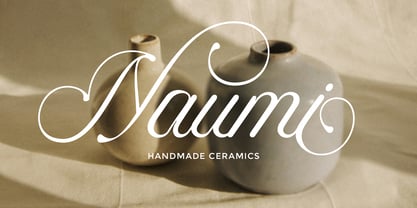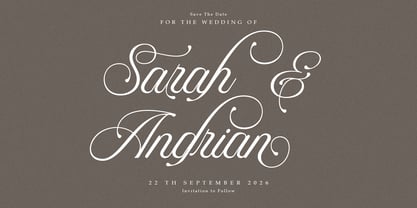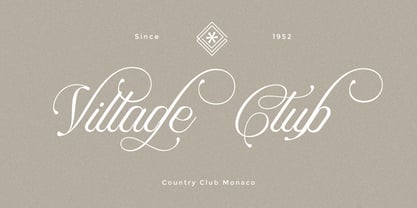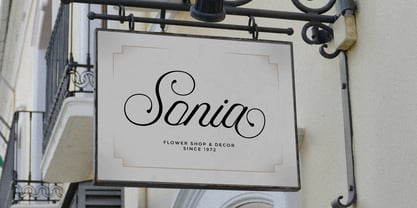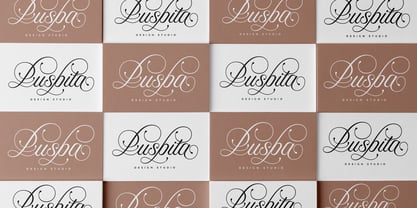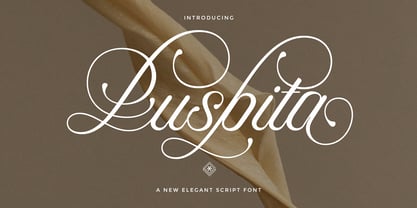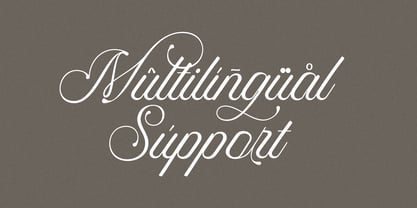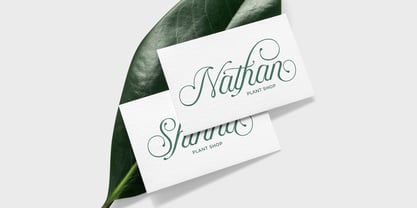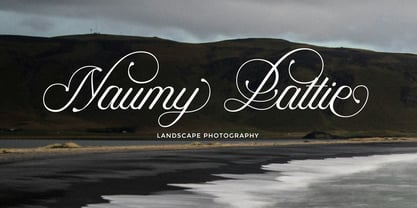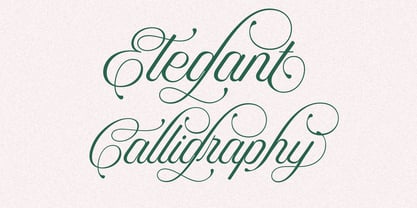
Puspita Script
by Letterfreshstudio
The Puspita Script Font Family was designed by Rizki Andika and published by Letterfreshstudio. Puspita Script contains 1 styles. More about this family
Puspita is a sophisticated and timeless script font, perfect for adding a touch of refinement to projects such as brand identities, elegant invitations, product labels, apparel designs, and more.
With unique stylistic alternates and ligatures integrated into its OpenType features, this font offers incredible flexibility and creative freedom for any design.